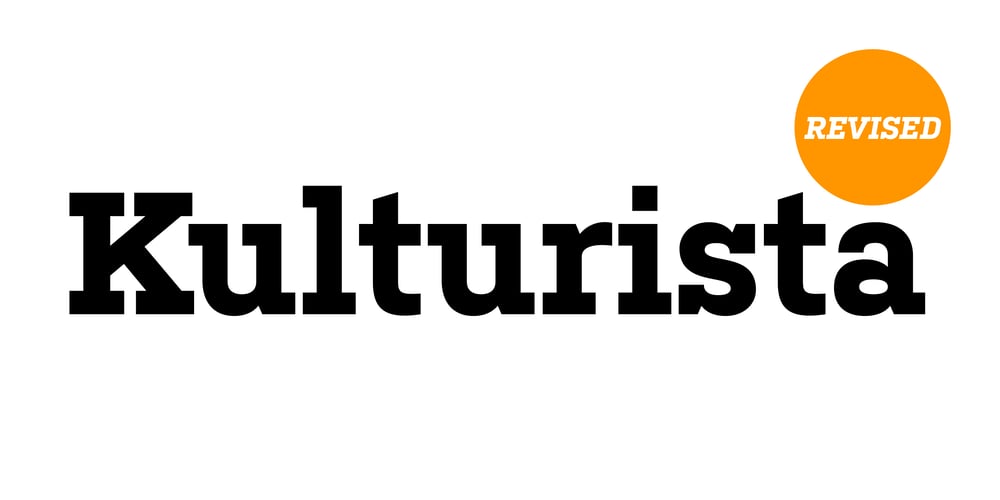
Kulturista Font Family was designed by Tomáš Brousil and published by Suitcase Type Foundry. Kulturista contains 12 styles and family package options. Kulturista is an unmistakeable linear slab serif typeface with pronounced rectangular serifs. The drawings are based on the sans-serif Nudista typeface, and Kulturista also inherits Nudista’s distinctive narrowed character proportions, range of weights and glyph sets. The italics are inclined sufficiently, and have the same width and colouring as the plain styles. They aren’t just a mechanically-slanted version of the basic styles, as is often the case for typefaces derived from geometrical images — a whole range of characters have their own drawn variants, which greatly strengthens their highlight function. The italics are therefore an equal partner for the roman styles.Kulturista is definitely a good choice for a headline typeface for magazines and book covers. The range of boldness can come in handy when editing sections, headlines and supplements. The typeface understandably proves itself as a healthy foundation for a unified visual style, and holds up at display sizes as well as on shorter texts.